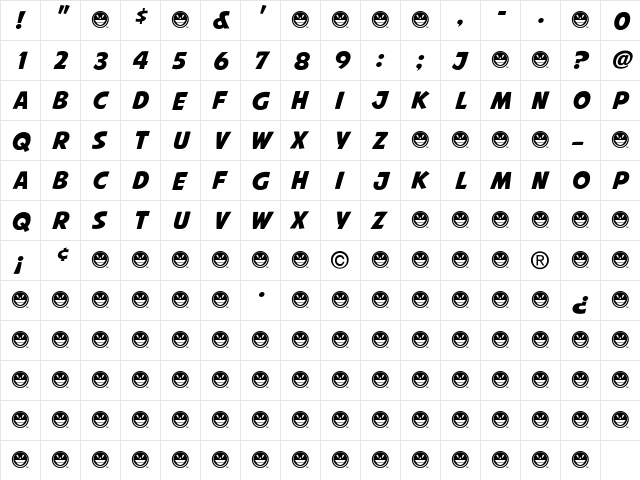
Avengeance Mightiest Avenger Regular
Design Context for Avengeance Mightiest Avenger Typeface
Avengeance Mightiest Avenger is a composed and adaptable typeface that performs quietly and consistently across a wide range of design contexts.